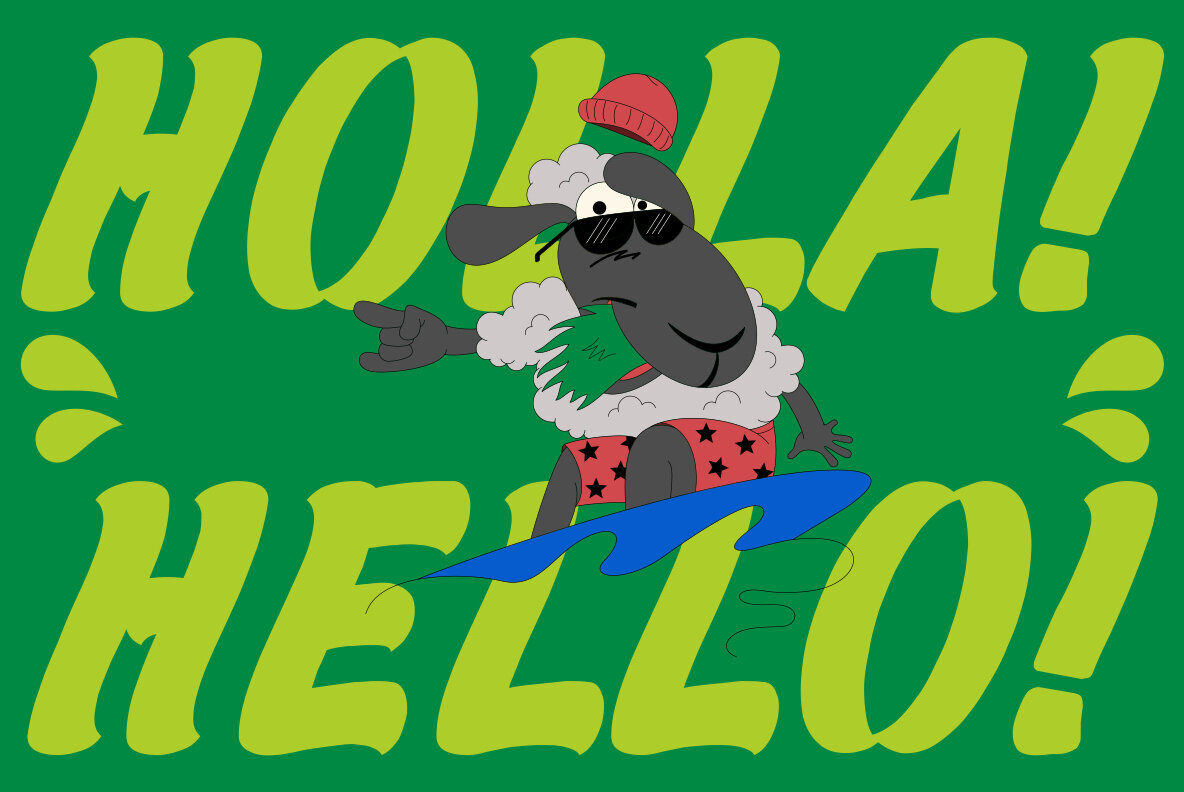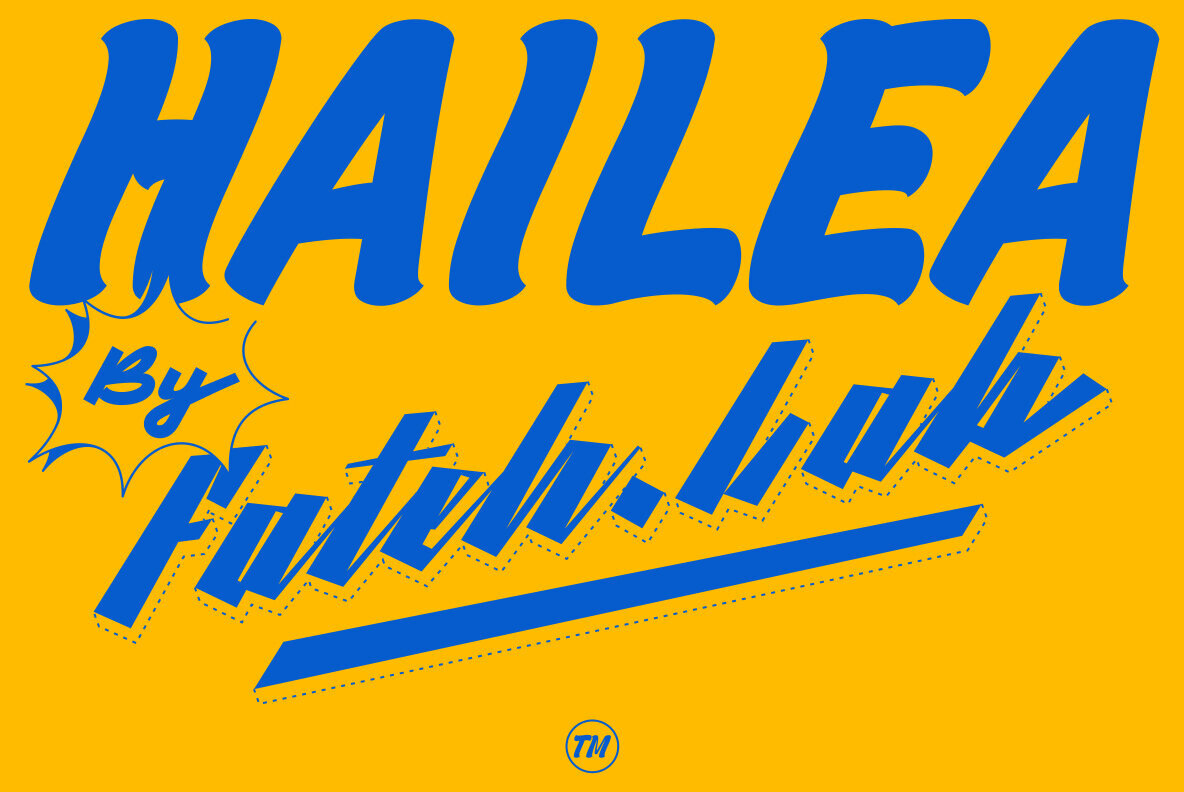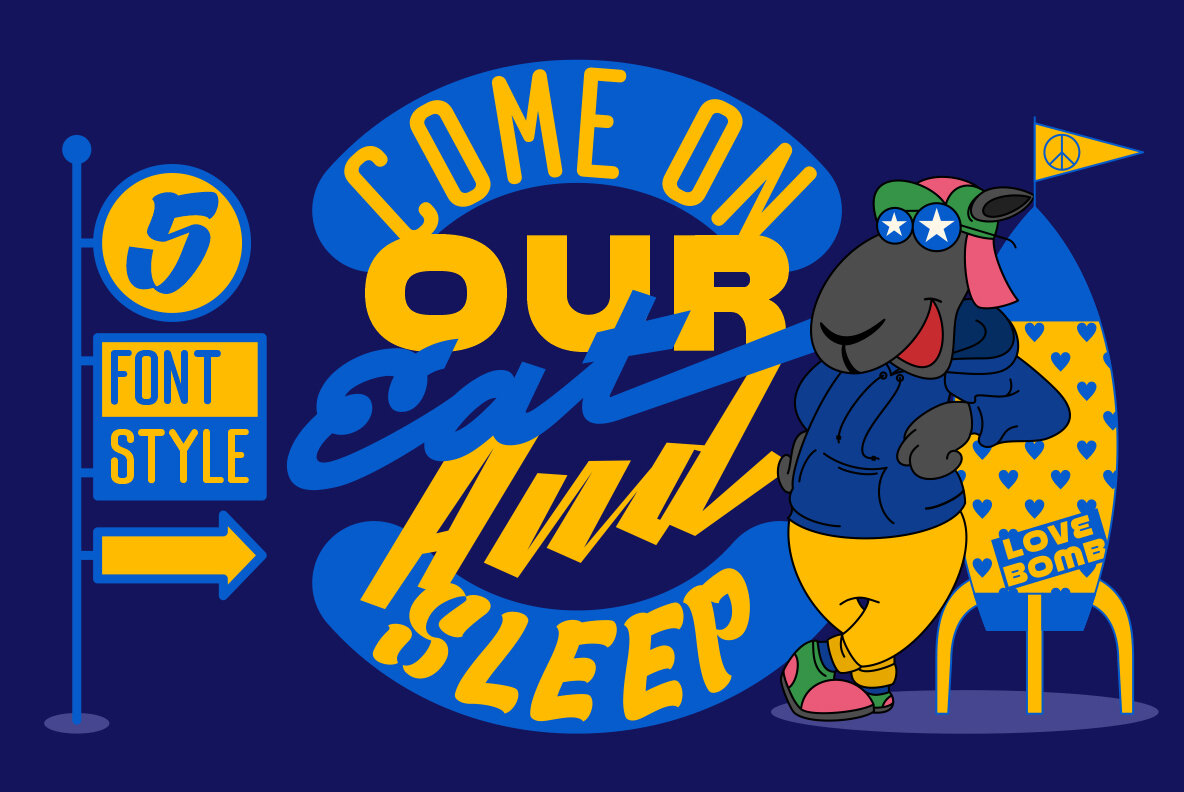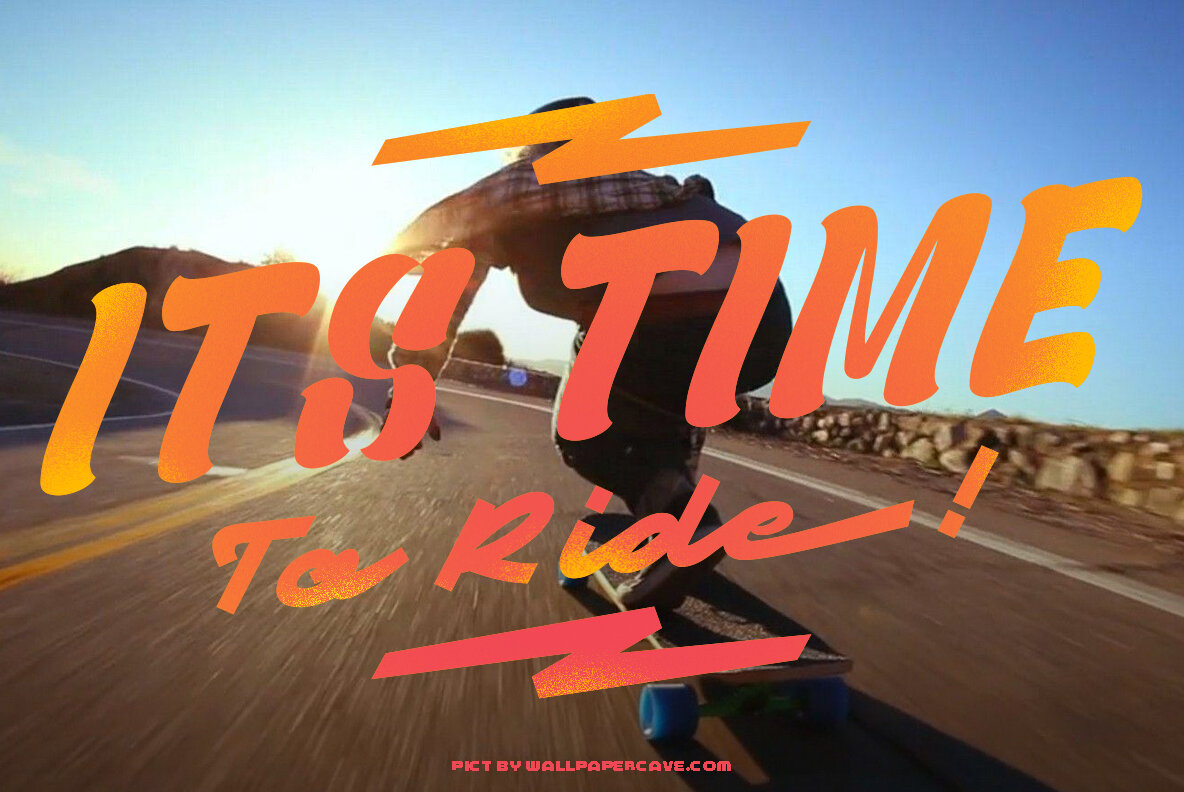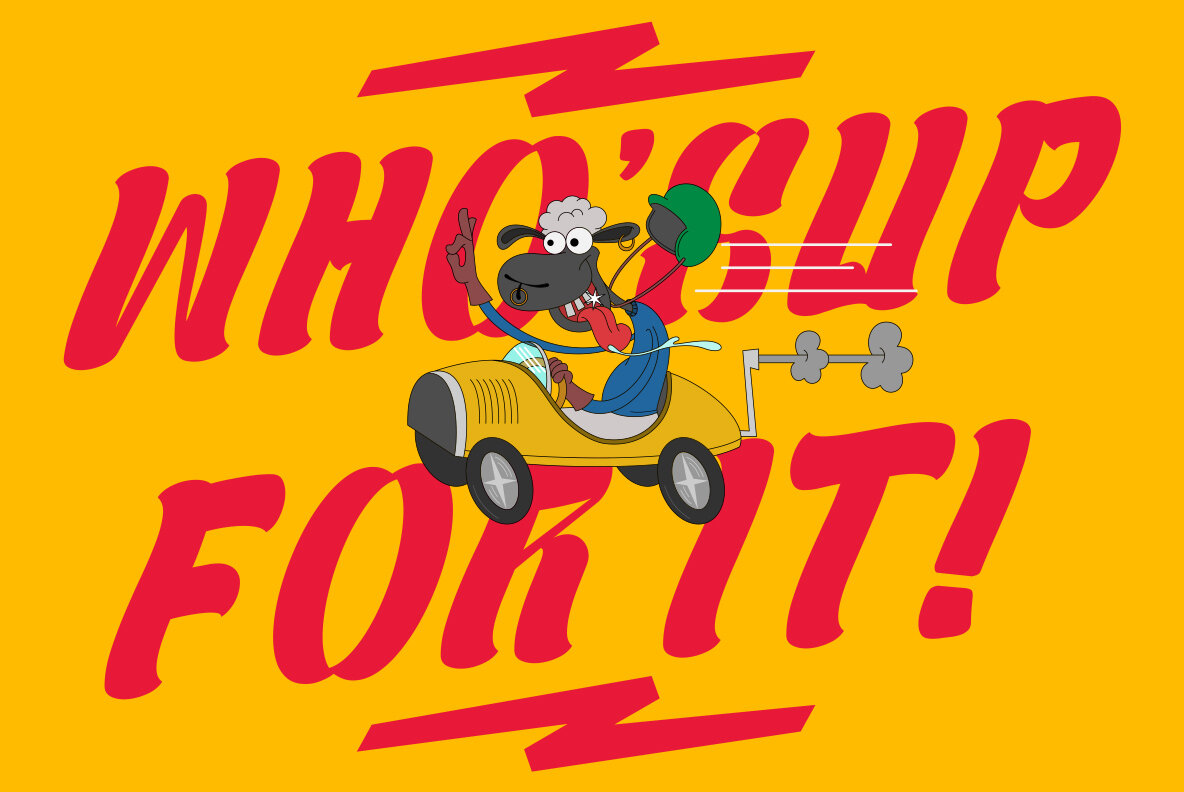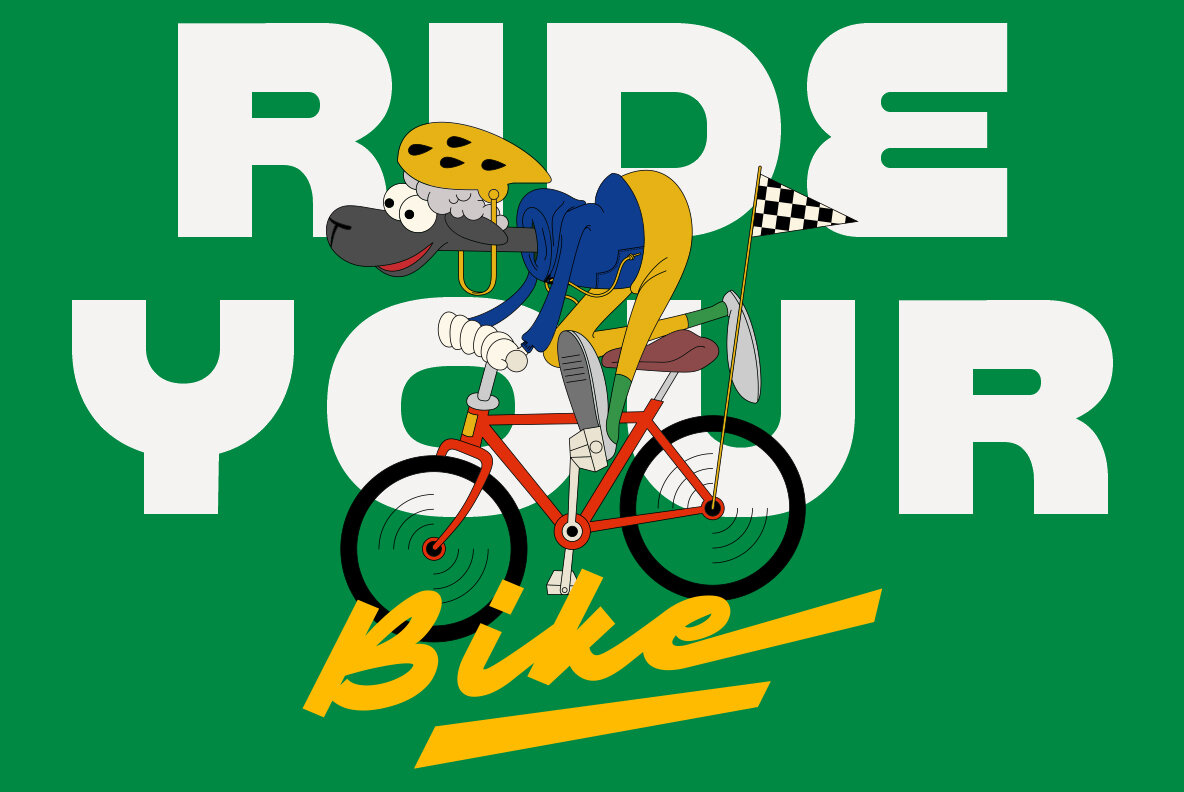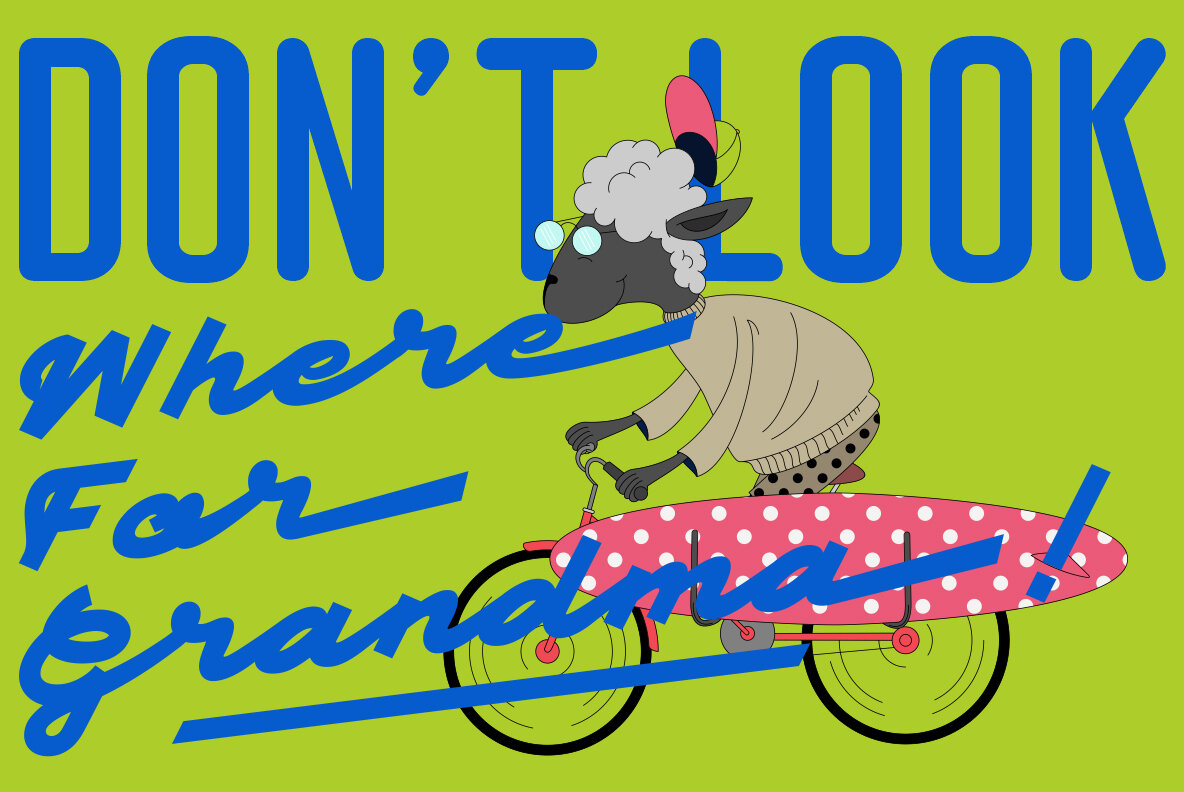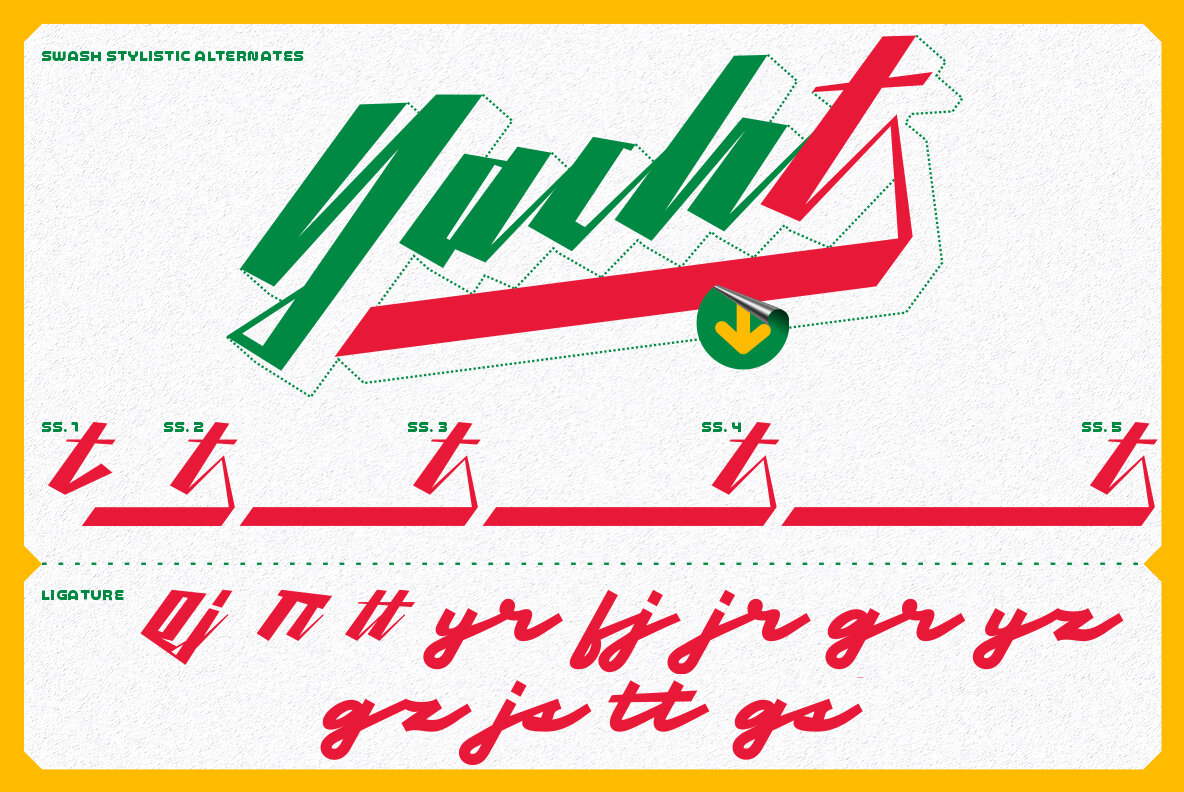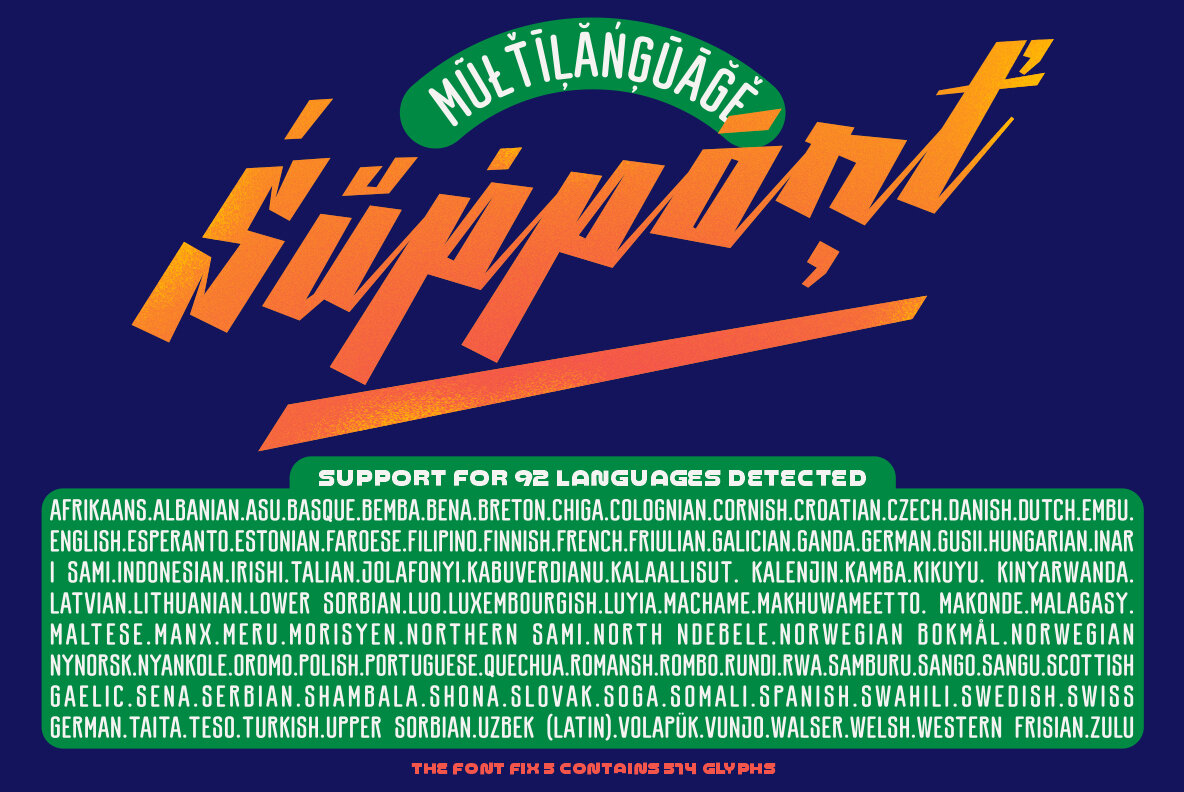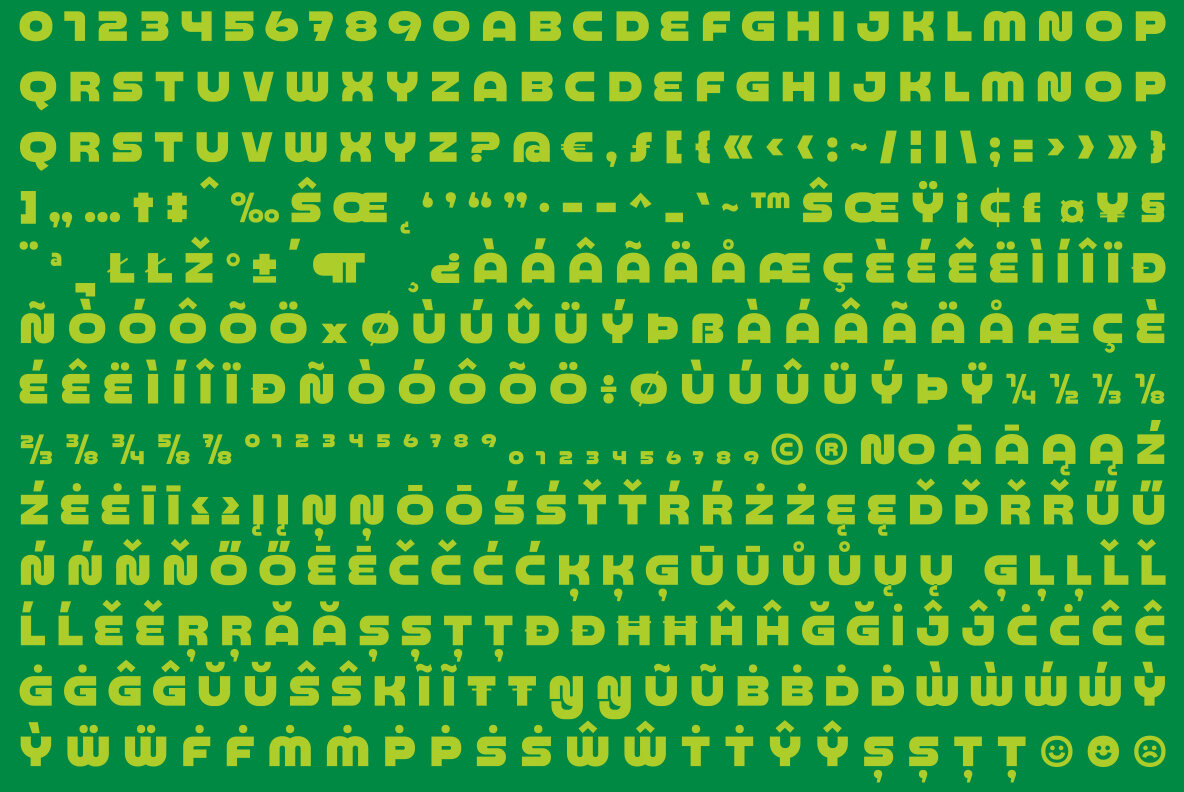
Hailea Font
This font family is perfect for those who want to make their designs stand out. It has a modern style with soft but firm characters, making it different than most other fonts you'll see on the market today!
This fresh and cheerful theme will work well in any project - whether its posters or social media posts- as long as they have large print formats available (or anything else).
With 5 choices of typeface styles, plus some cool free vector bonuses thrown into the mix too; there's no reason why anyone shouldn't give this amazing font bundle a try!
Fateh.Lab is a type studio based in Indonesia led by designer Wisnu Cipto Wibowo. Their work is defined by a vibrant typographic spirit and an eye for contemporary aesthetic cues. Each font from Fateh.Lab reflects a thoughtful balance between function and visual personality, designed not just to serve modern n...